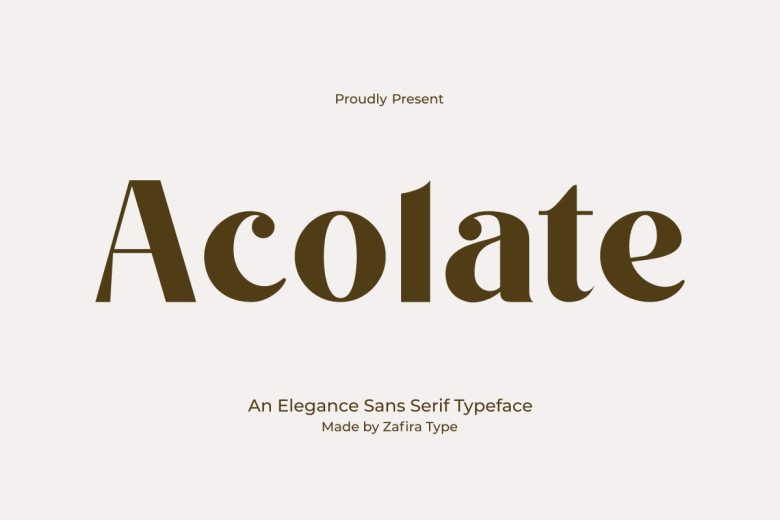
Acolate Font
Introducing Acolate is a sophisticated modernization of the sans-serif typeface that offers elegant, precise forms with carefully applied details. The sleek contemporary design of Acolate exudes clean straight lines with gentle arcs, and angularity that can give your designs that special appeal. Indeed, this font is appropriate for slogans or other images since it can work in various design requirements.
With all the aesthetic appeal of xaringe, but a little less flash, Acolate makes all your design work look that much better. August is the charm of power to Acolate, being the gate way to awesome aesthetics.
Acolate Sans Serif Font